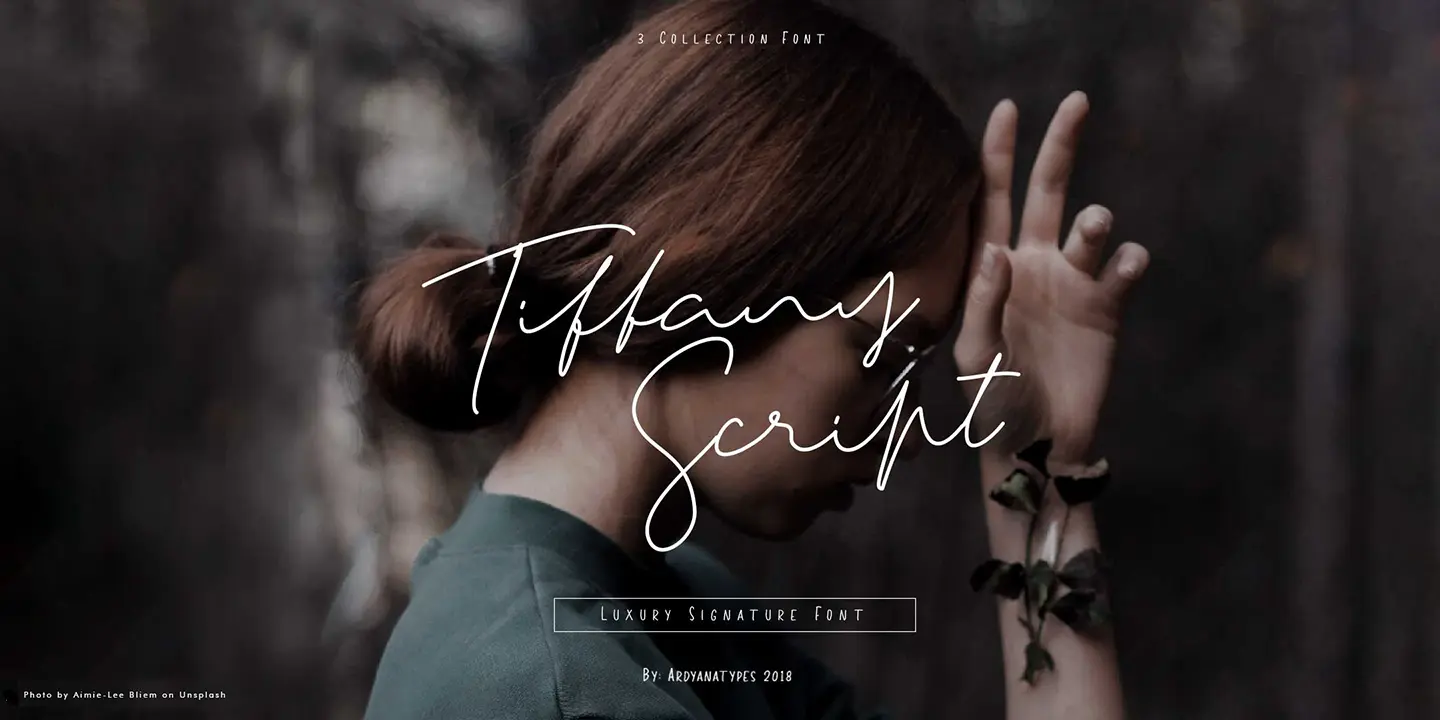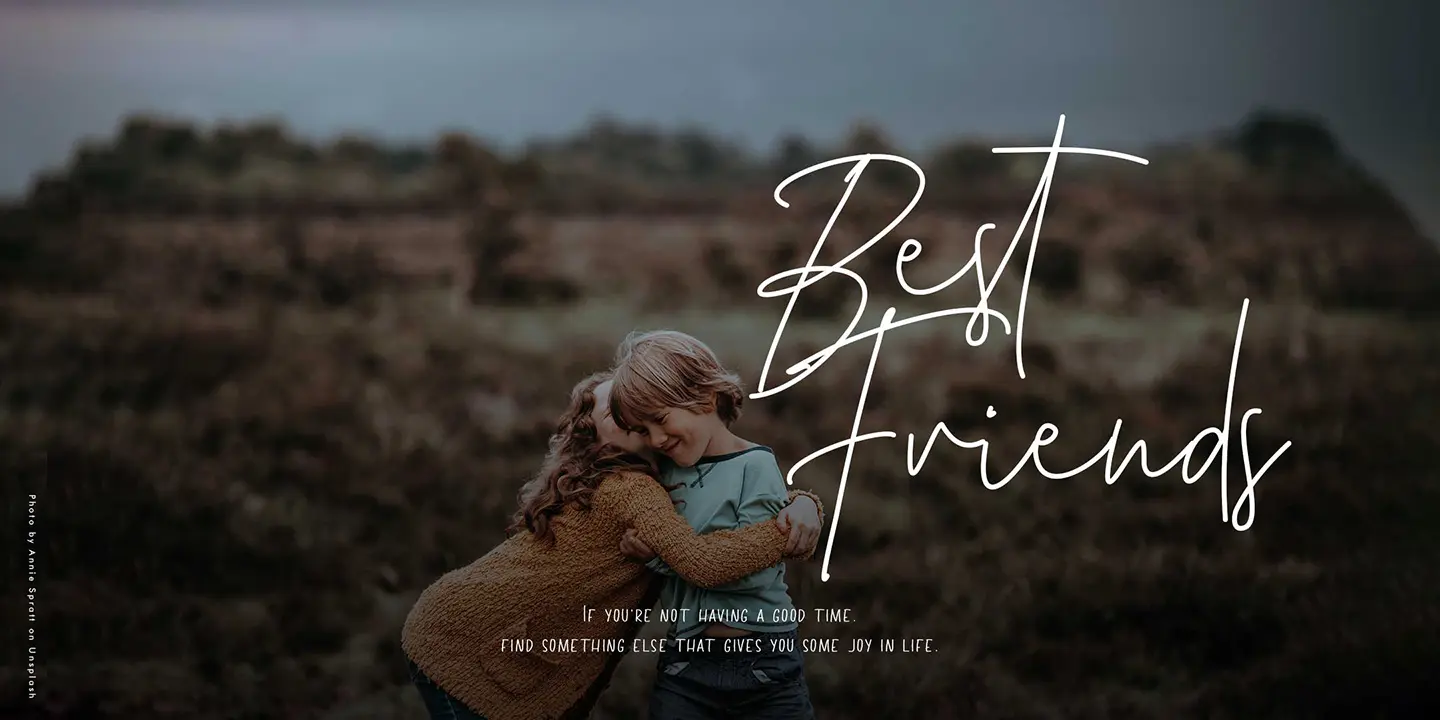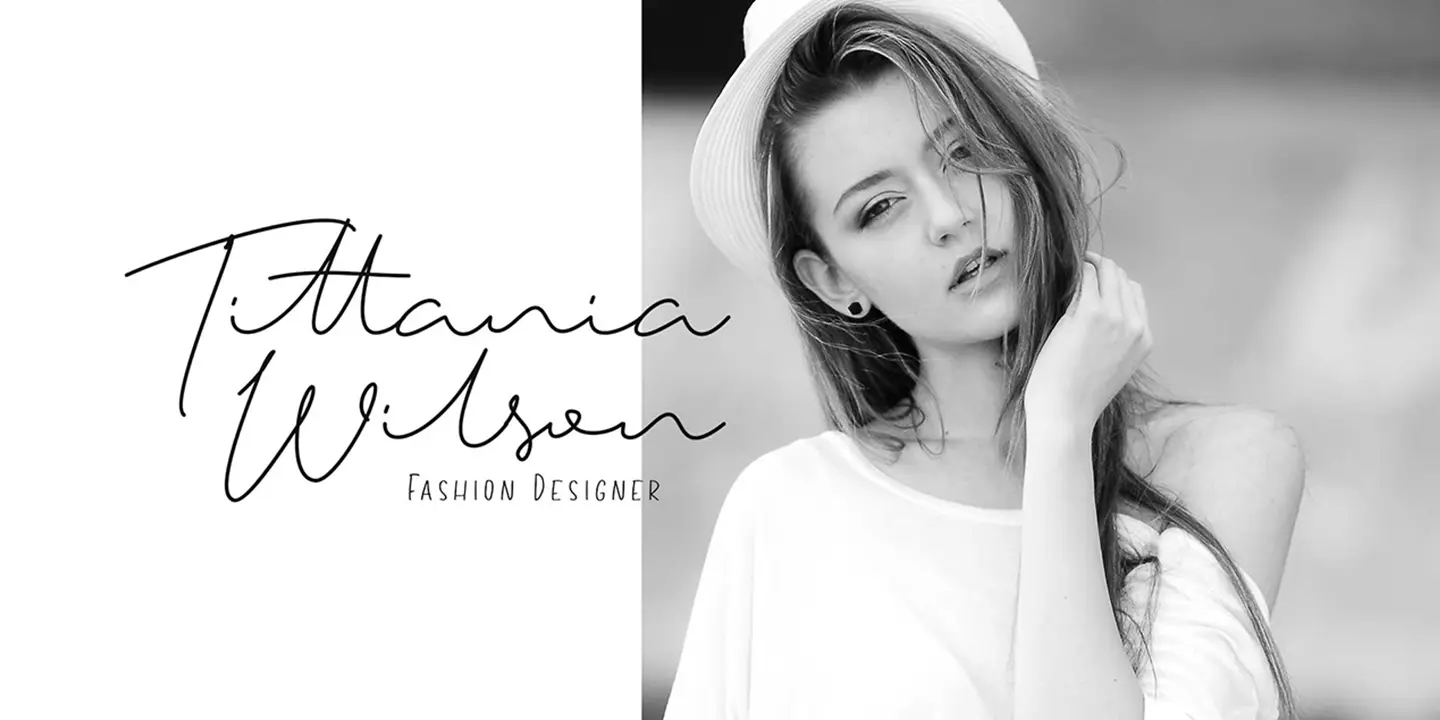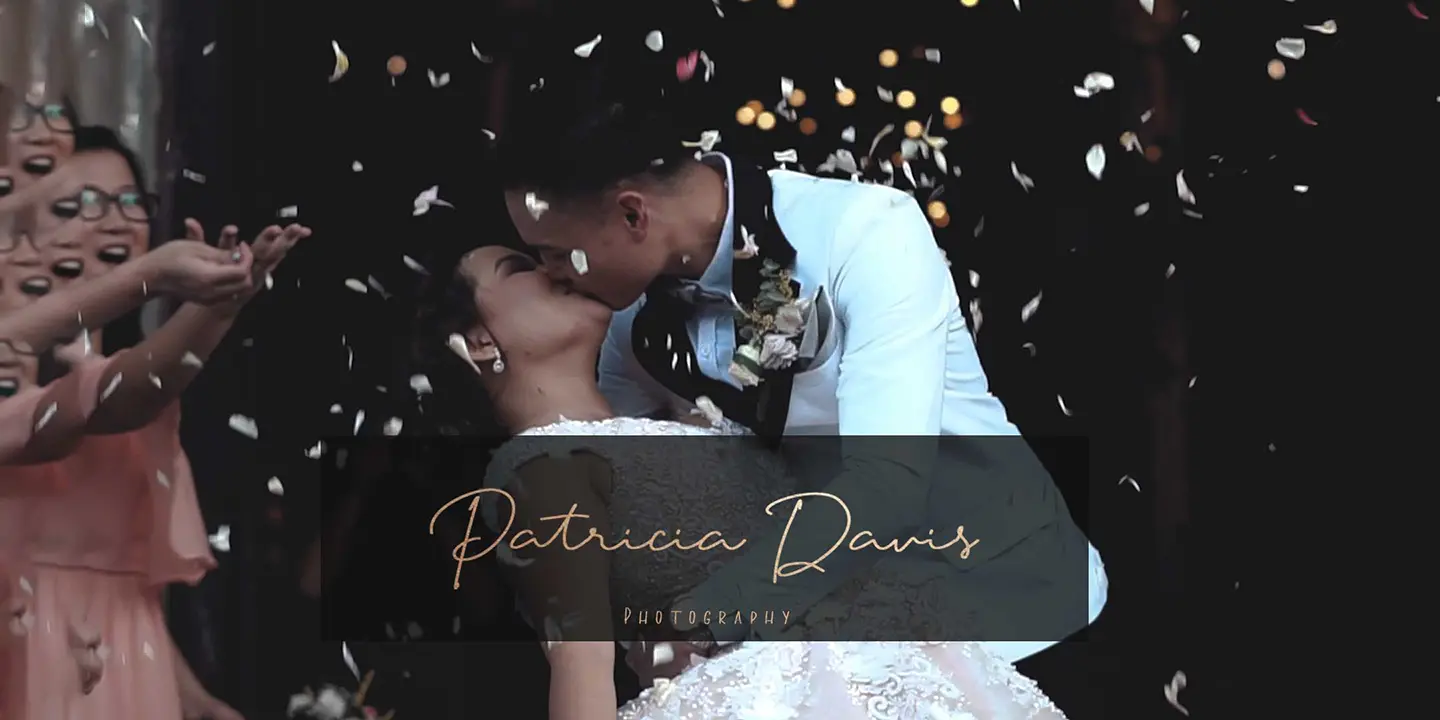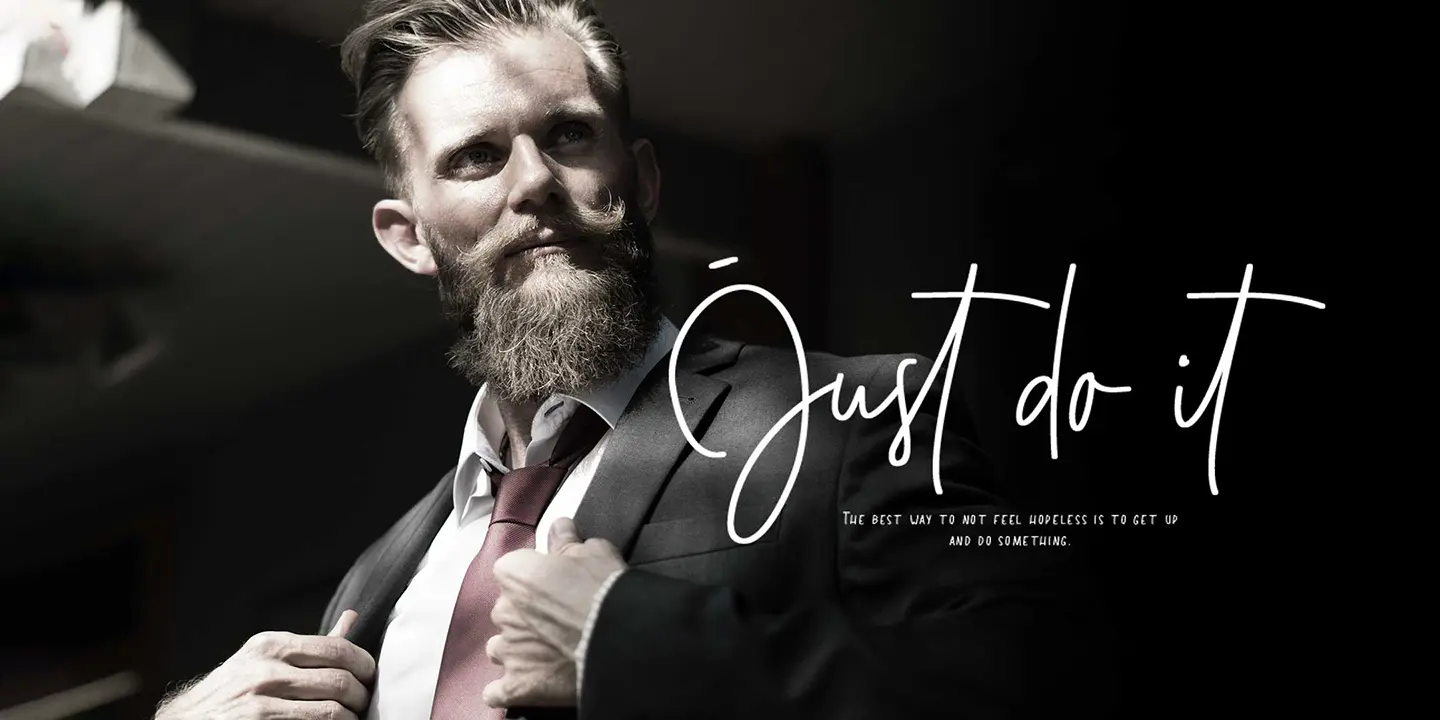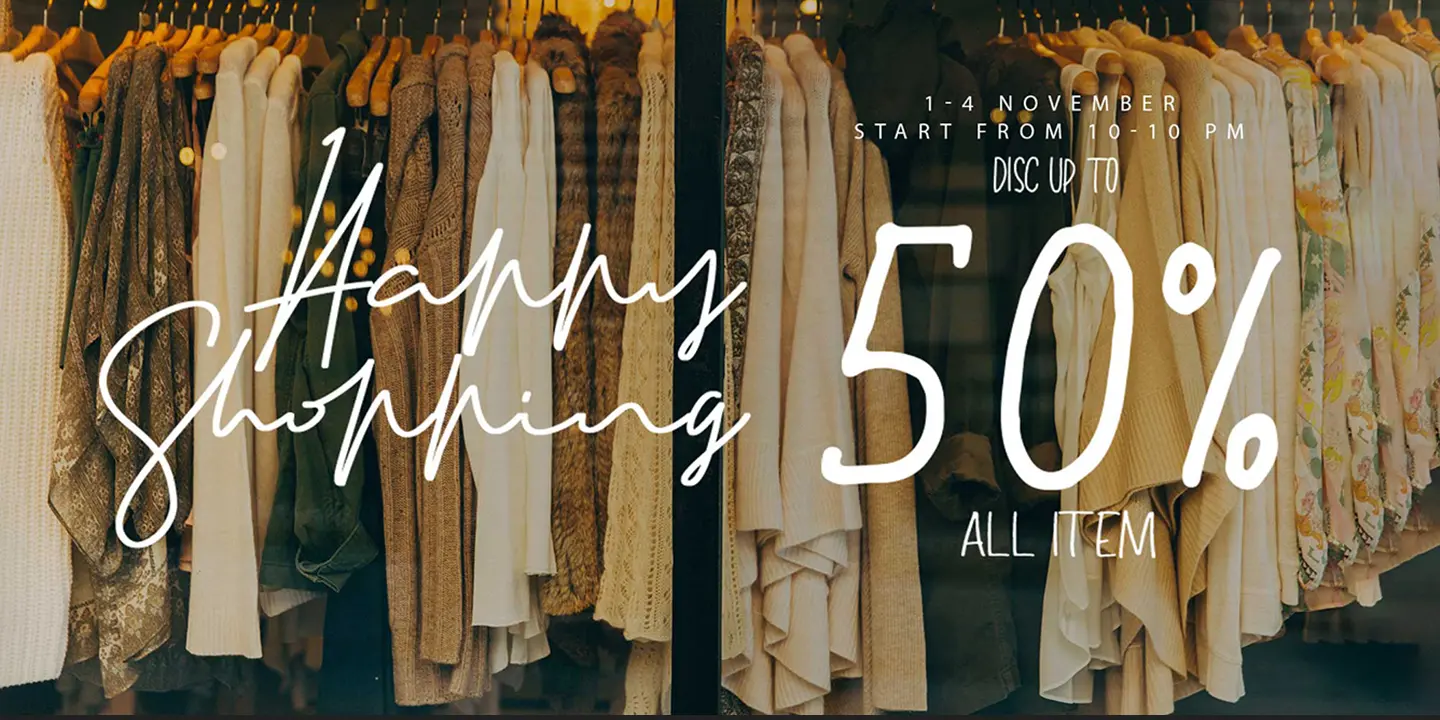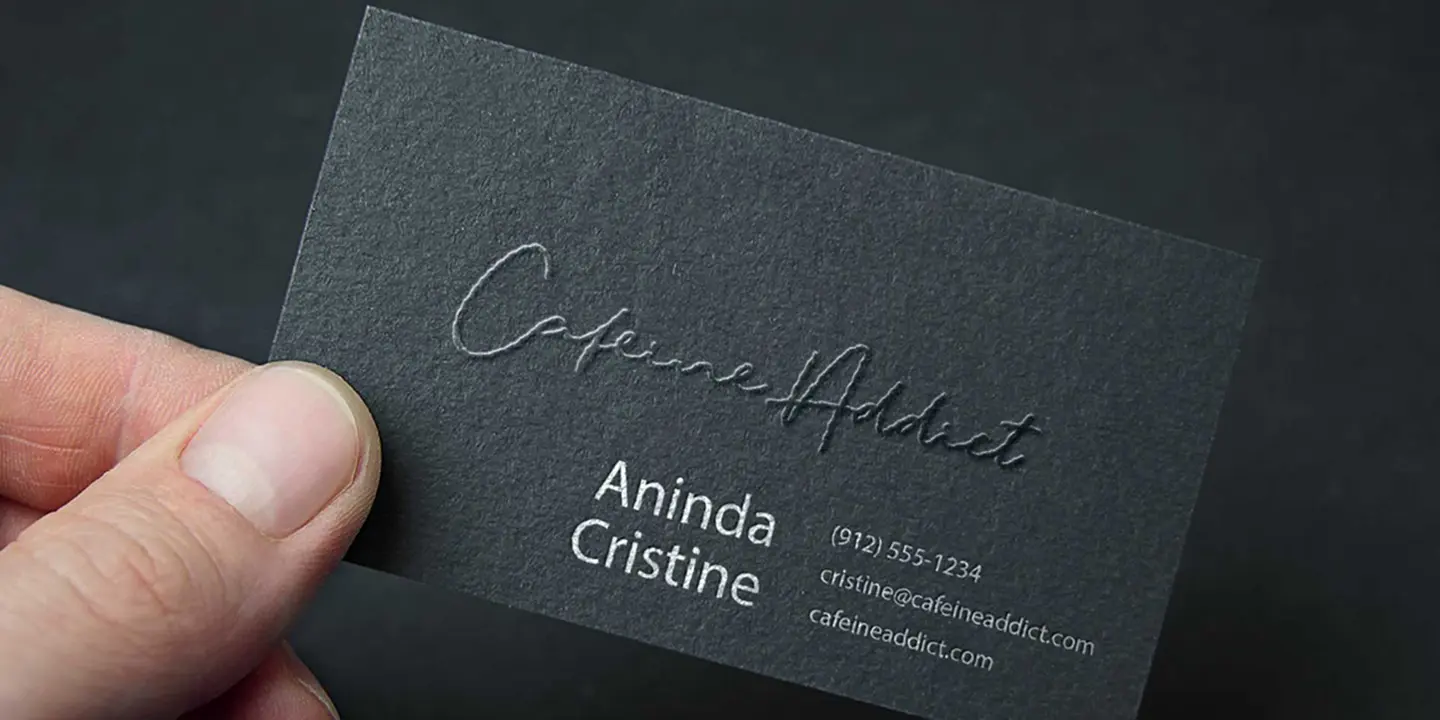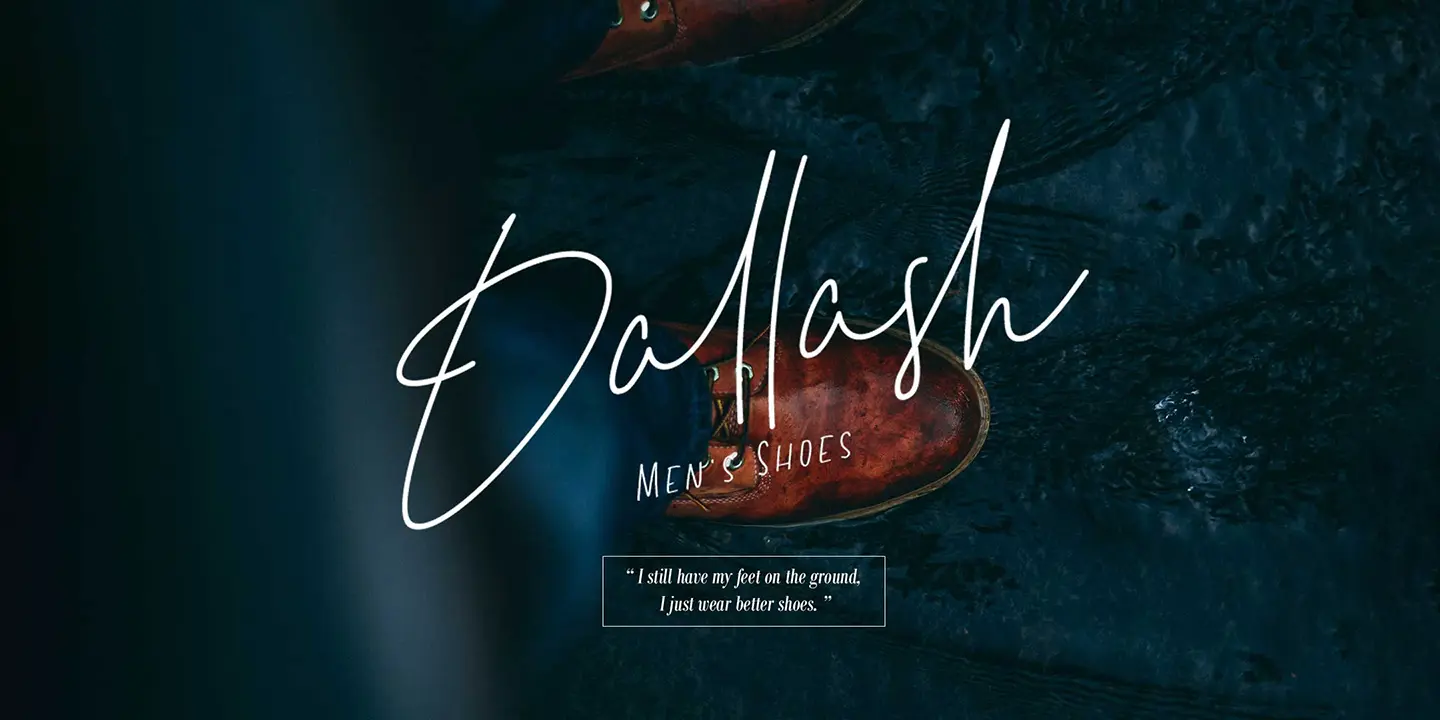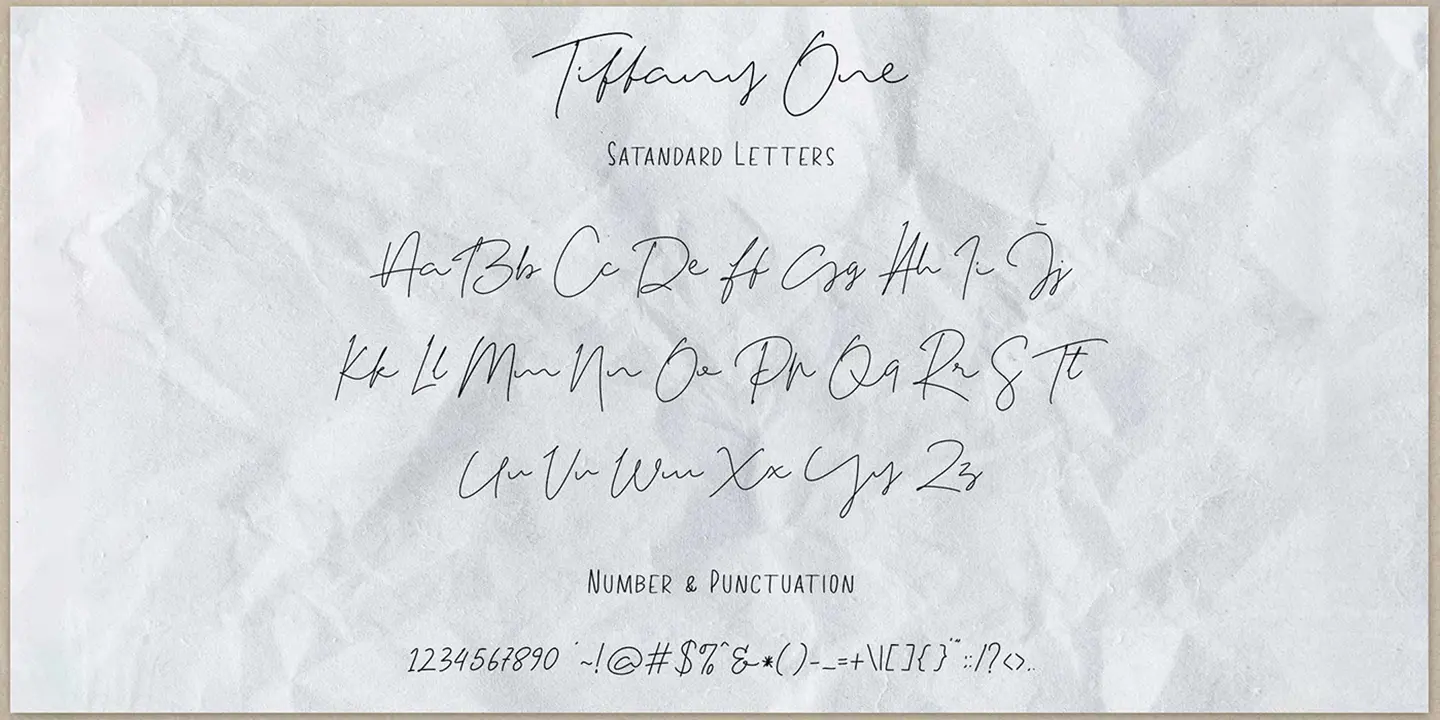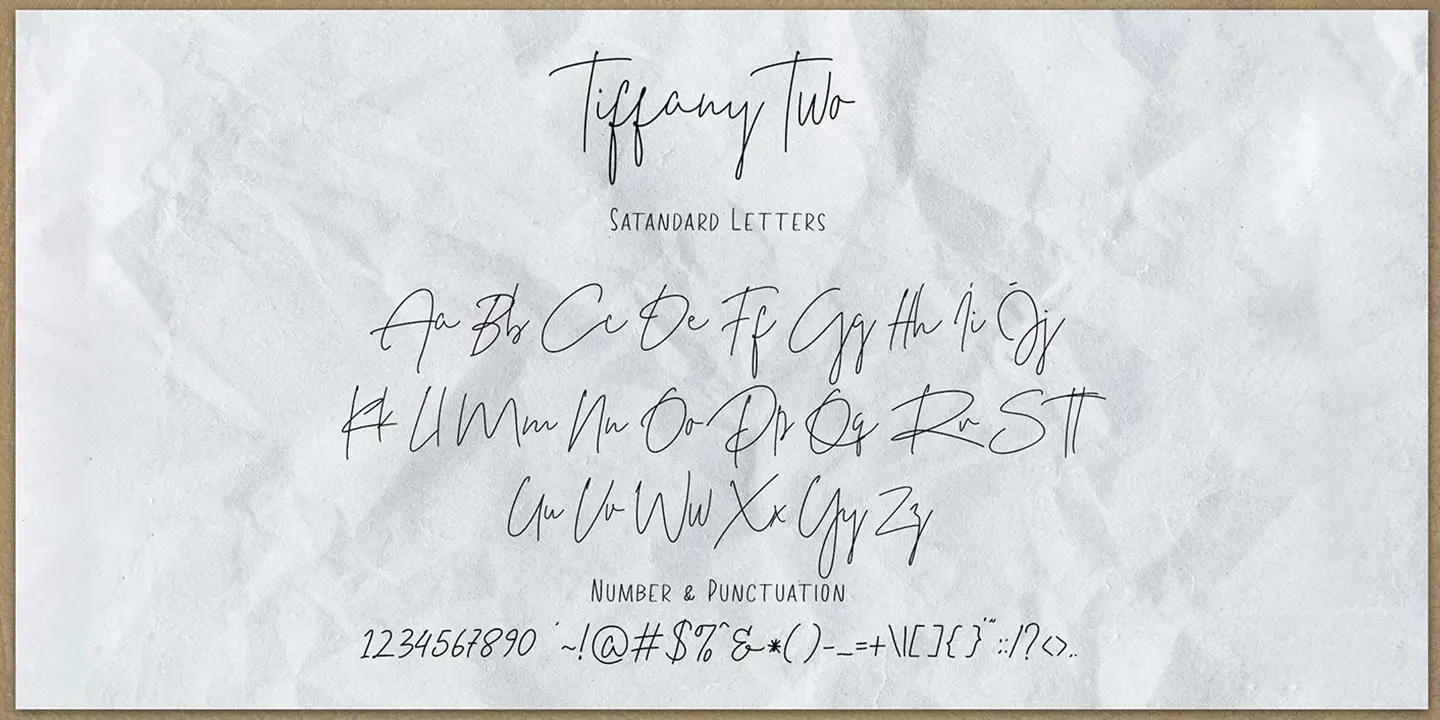
Tiffany Script
3 Styles
“Tiffany” is a font with natural representation as a handwritten construction, featuring a straightforward, simple, elegant and very beautiful character. We often get a lot of requests to create signature-style logos, while still giving the feel of a real hand letter. That is the forerunner of the idea that gave birth to this font. “Tiffany” is very suitable and charming for use in brand design needs. Where “Tiffany” has 3 variations of style, one of which has the most eccentric character, which complements all your needs to apply each letter of “Tiffany” more broadly and is more powerful in translating the use of creations. To strengthen the natural accent with the nuances of handwriting, “Tiffany” also presents 132 ligatures from 2 different types (can be seen between the presentation of the image). In creating fonts, we must think about using them in detail in each letter so that they can be connected with other letters naturally and smoothly. “Tiffany” is the right choice to use watermarks on photography, company logo design, signatures, quotes, album covers, business cards, and even many other design projects. This is where “Tiffany” is here to make your great work look more great, luxurious and amazing.